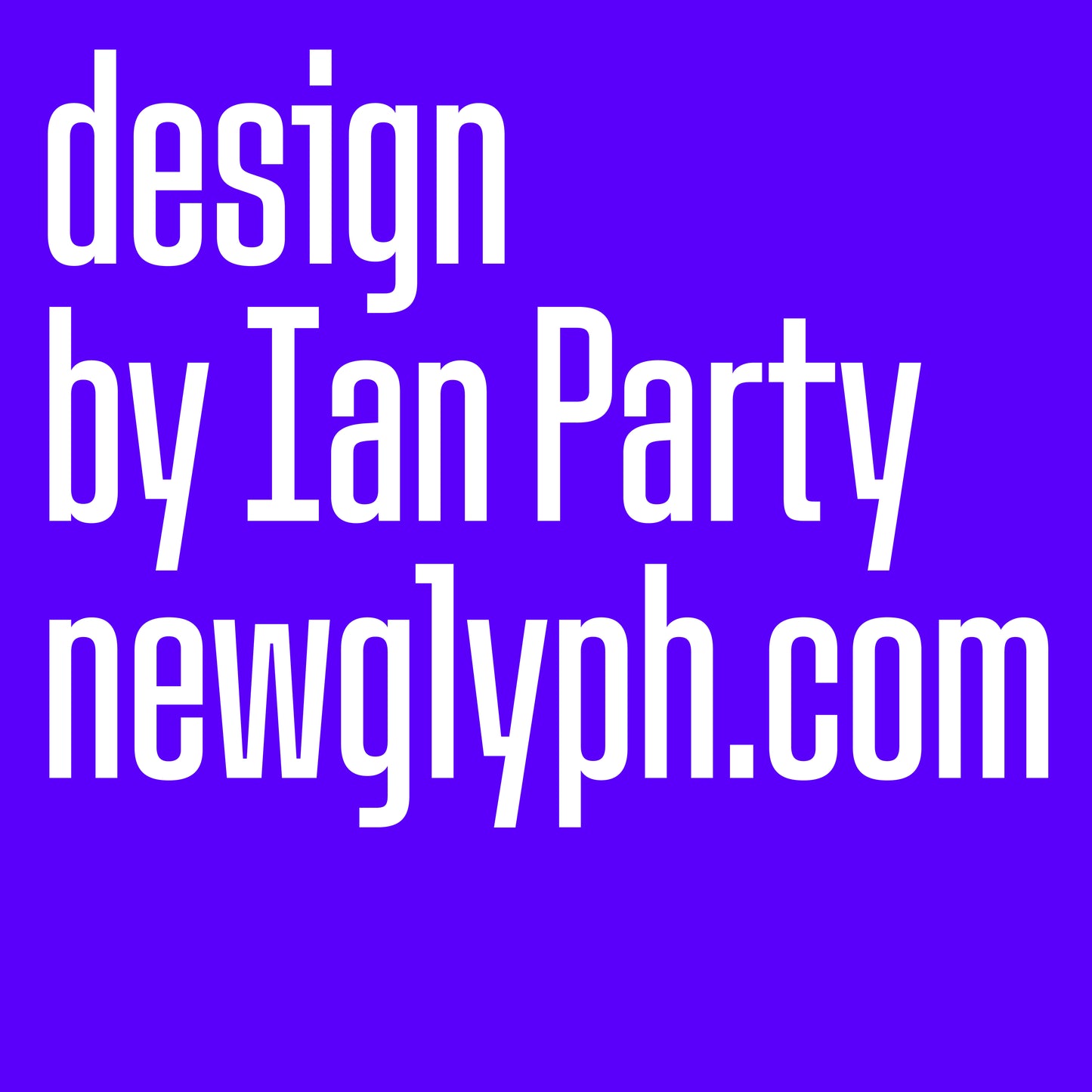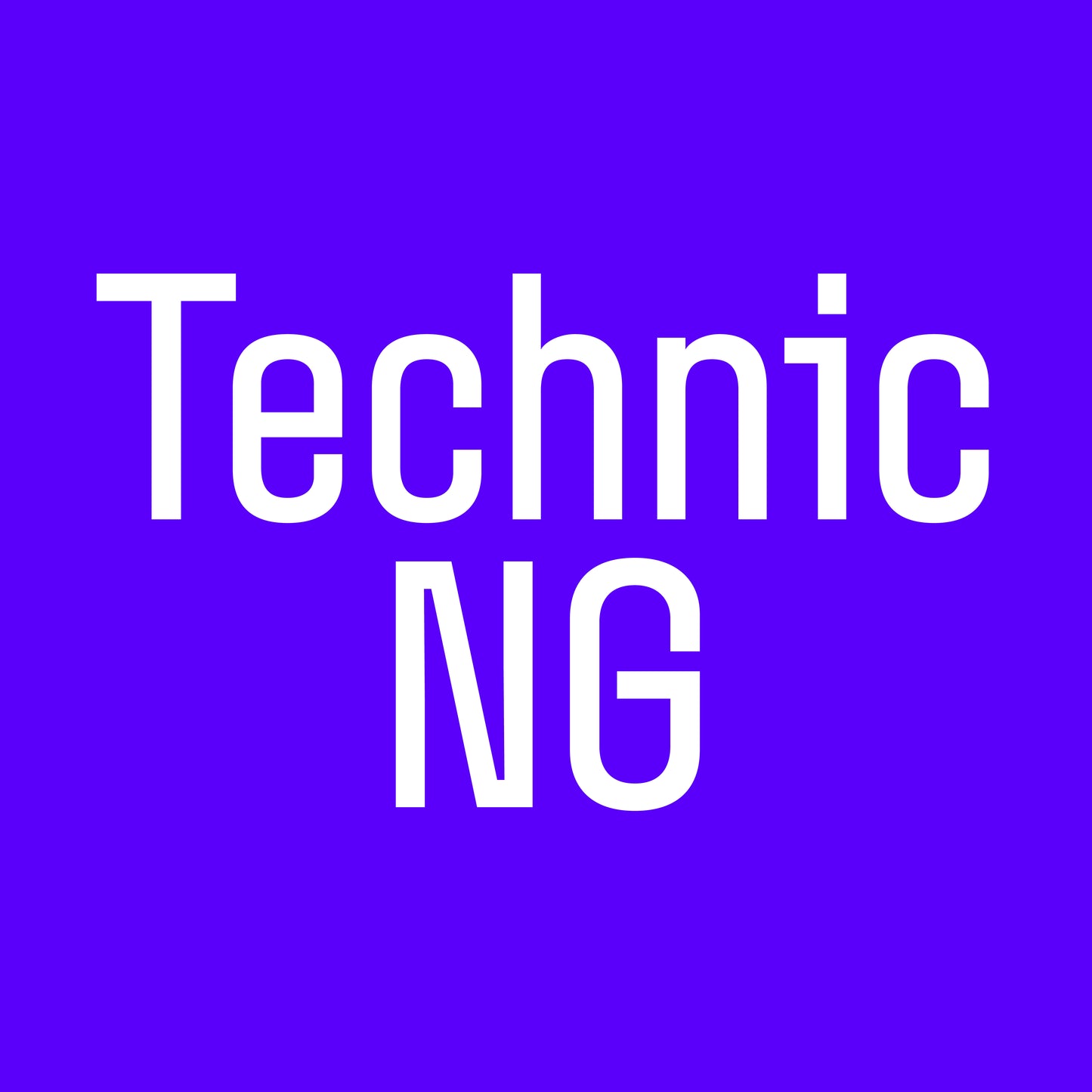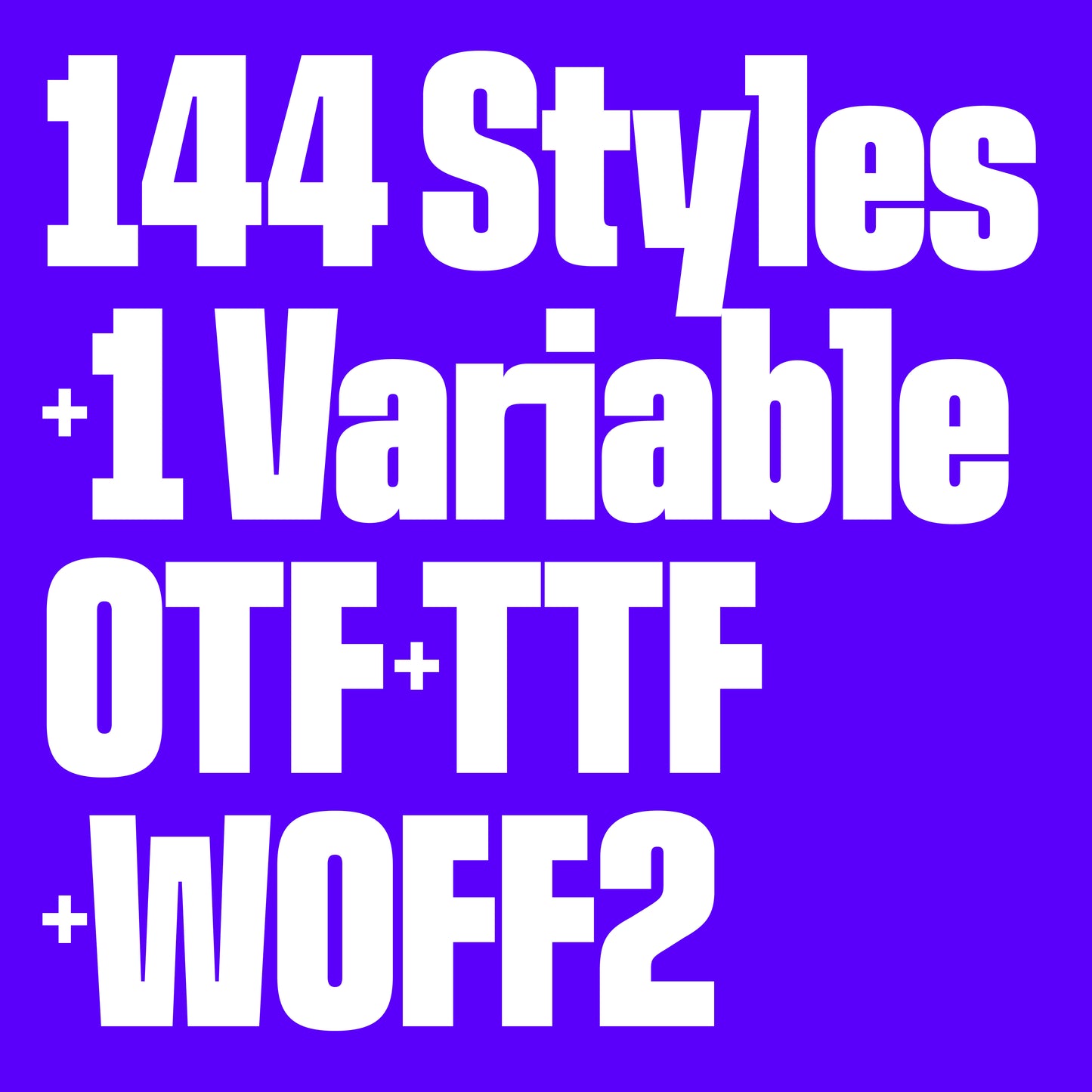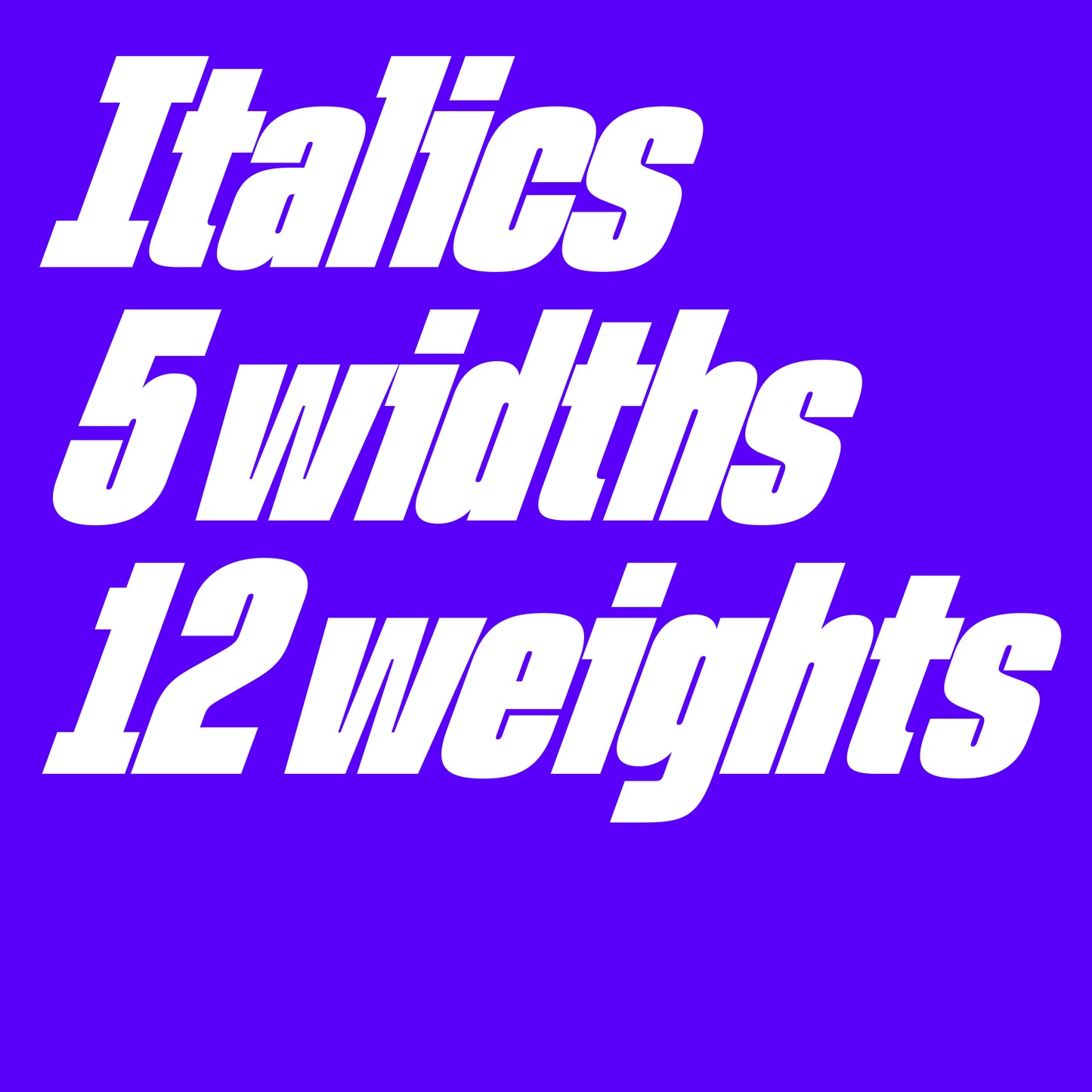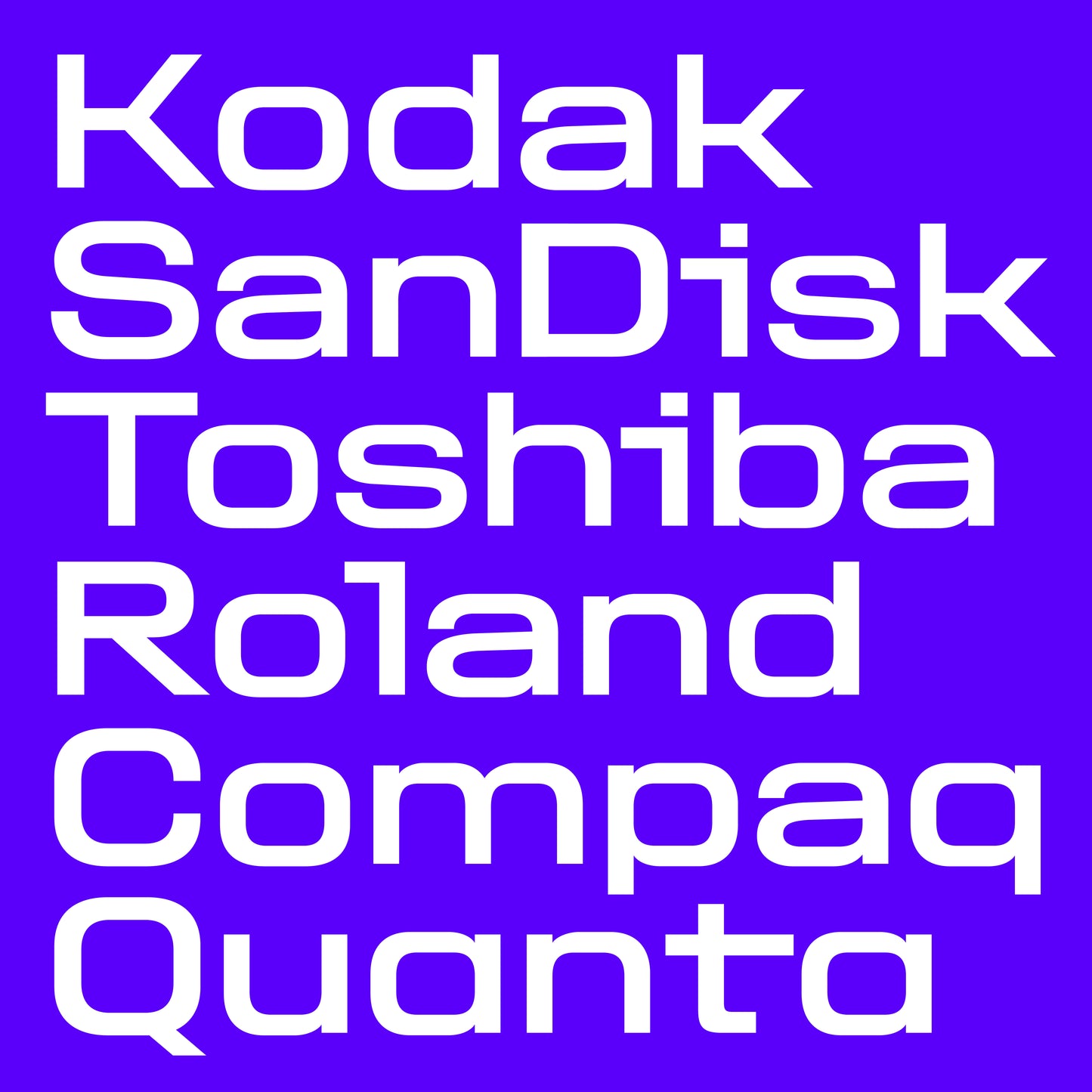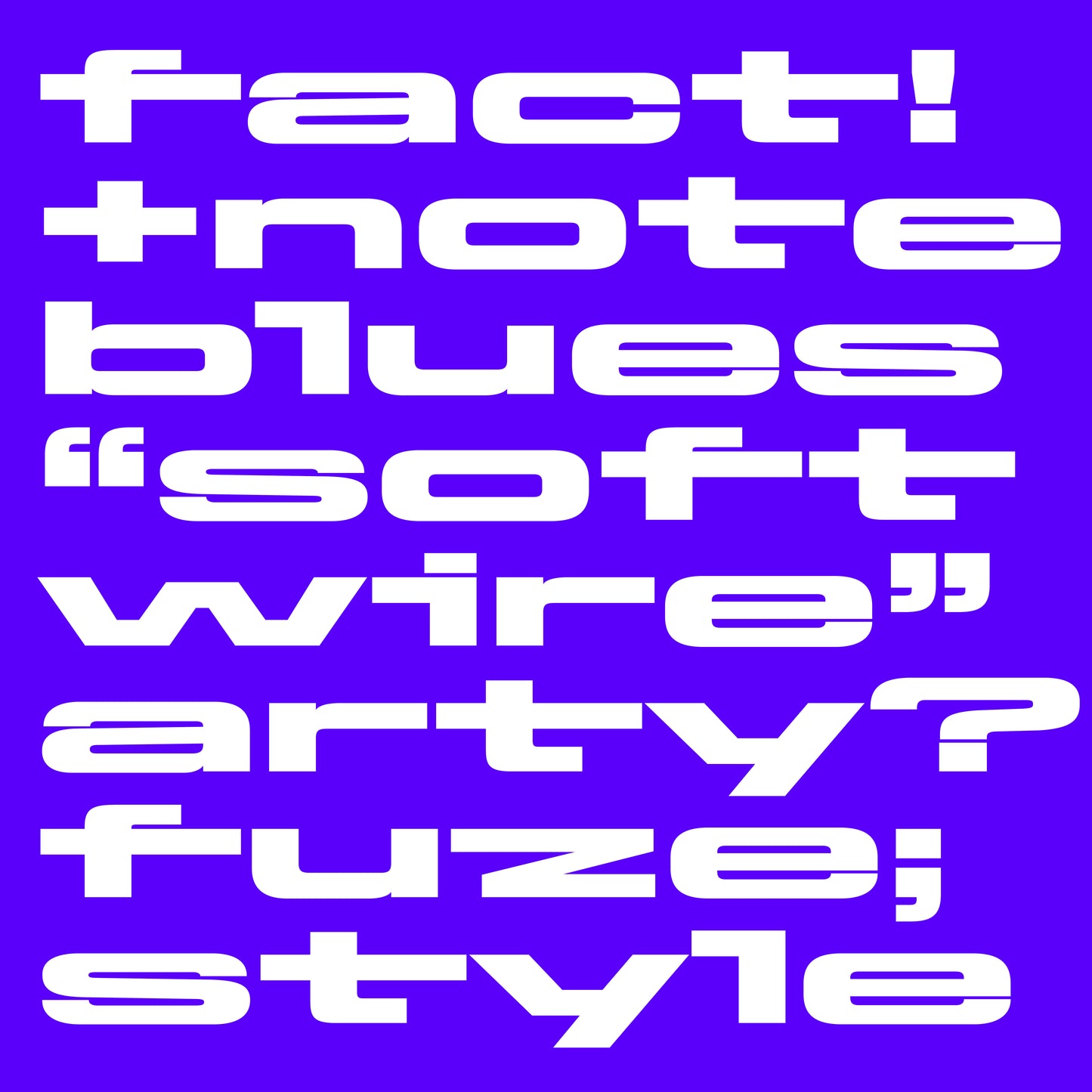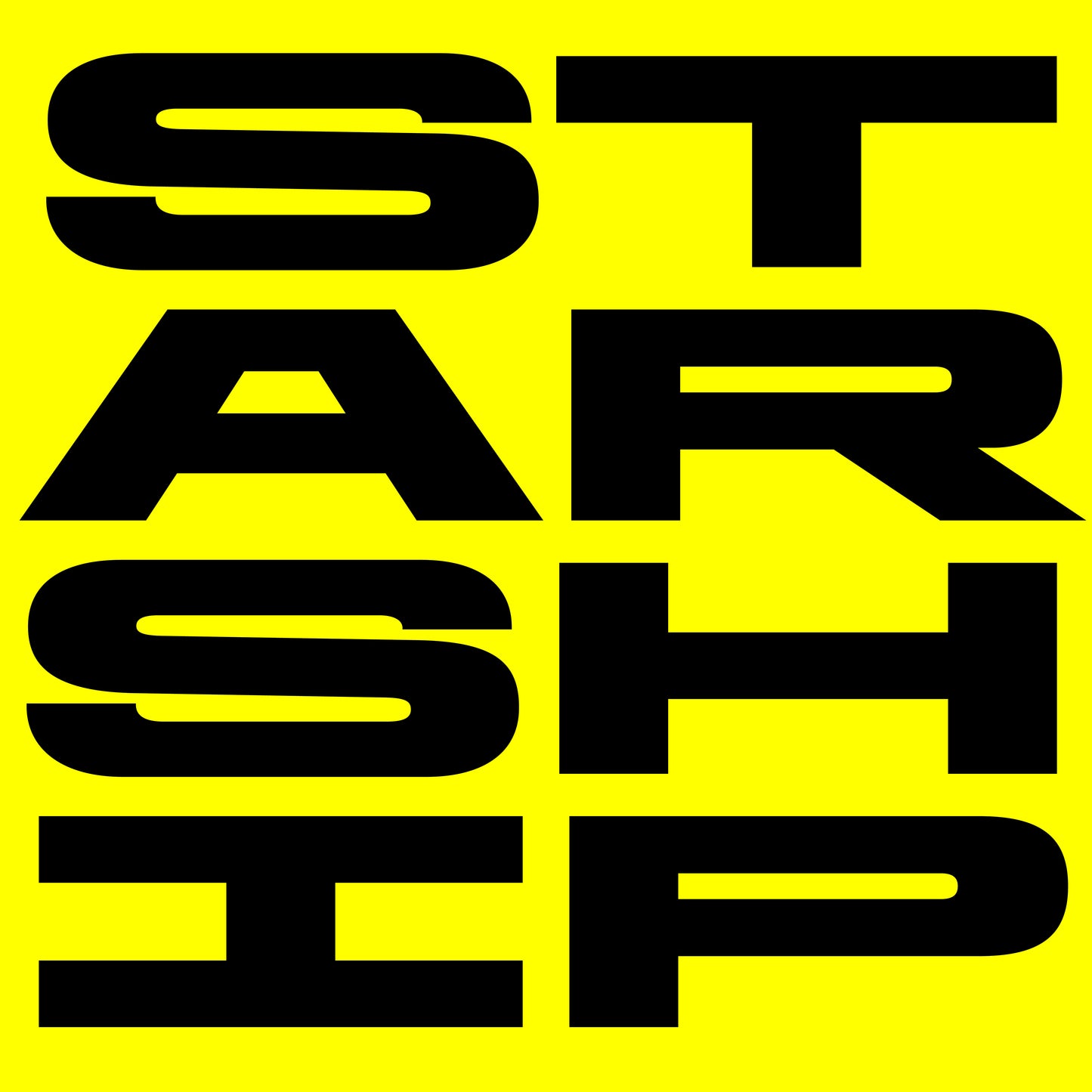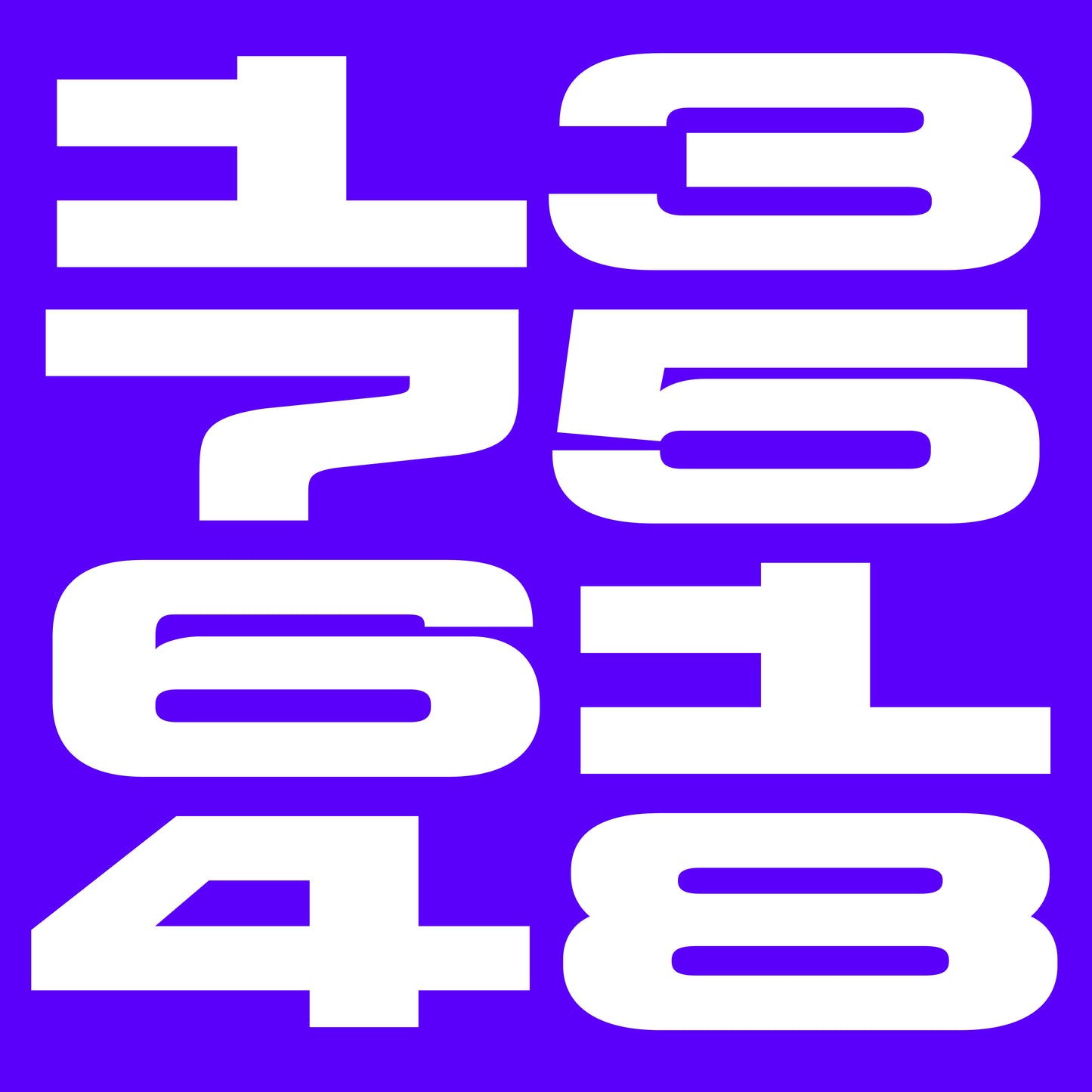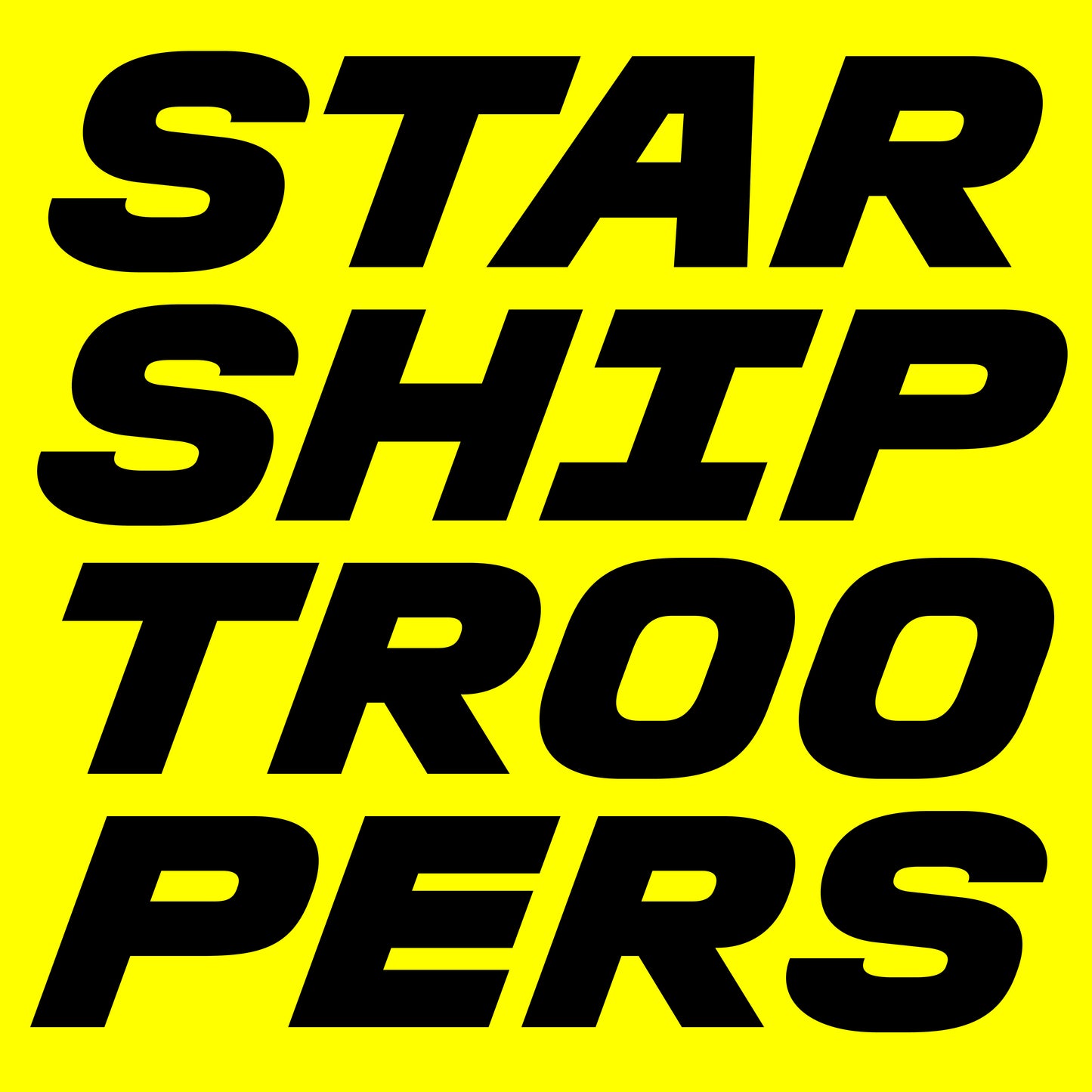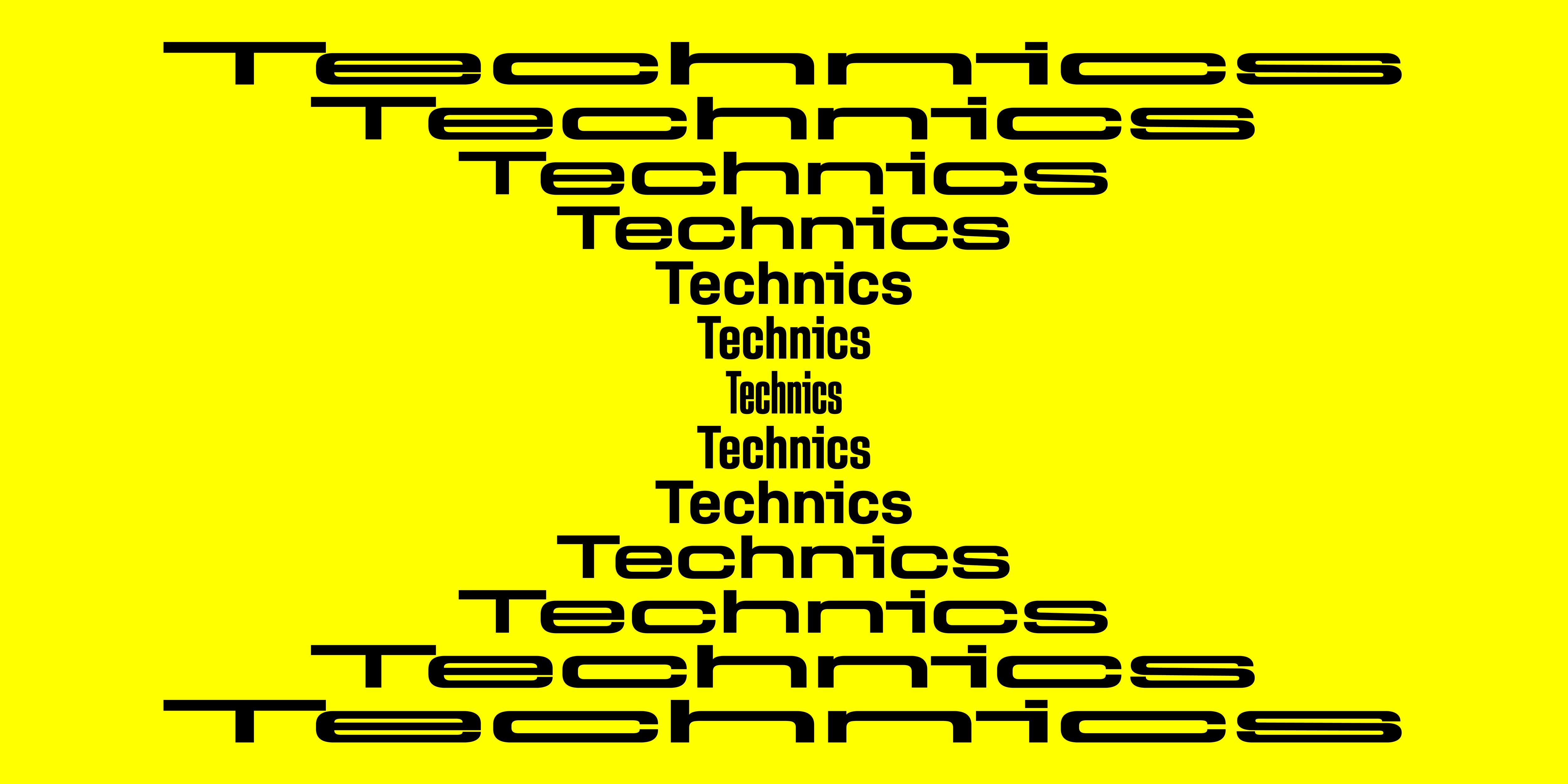
Technic NG
Technic NG, designed by Ian Party, is a modern variable font that embraces the purity and precision of Neo-Grotesque design while evoking the vastness and elegance of outer space. Inspired by the minimalist Swiss typography of the mid-20th century, this typeface refines the clarity and functionality of early grotesques, creating a balance between geometric precision and humanist warmth.
Much like the cosmos, Technic NG, is expansive and adaptable. Its variable weight range allows designers to fine-tune its presence, from ultra-light, airy compositions to bold, high-impact statements. With clean lines, controlled proportions, and subtle details, it embodies the timeless appeal of sans-serif typography while projecting a futuristic aesthetic.
Designed for branding, editorial, and digital applications, Technic NG, is a versatile tool that thrives in high-contrast, modern layouts. Whether used for sleek corporate identities or experimental typographic exploration, this typeface remains effortlessly sophisticated—like stardust scattered across the universe.